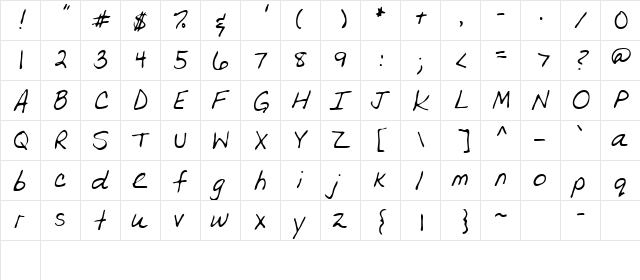
Olga Regular
Design Context for Olga Typeface
Olga is a composed and adaptable typeface that performs quietly and consistently across a wide range of design contexts.